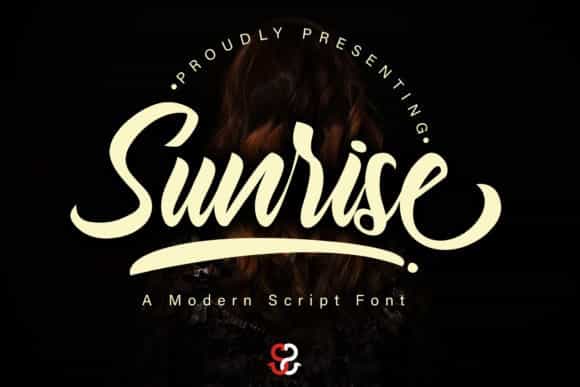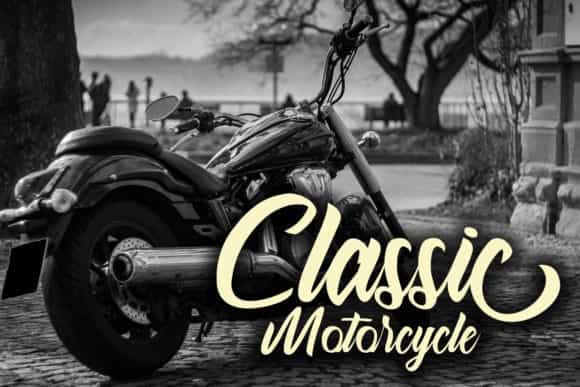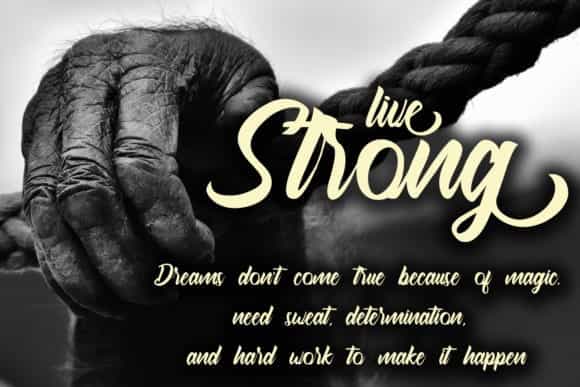
Sunrise is a calligraphy font that is just perfect for you who need a typeface especially for logotype, apparel, invitation, branding, packaging and advertising. This typeface comes in uppercase, lowercase punctuations symbols & numerals as well as stylistic alternates and swashes.